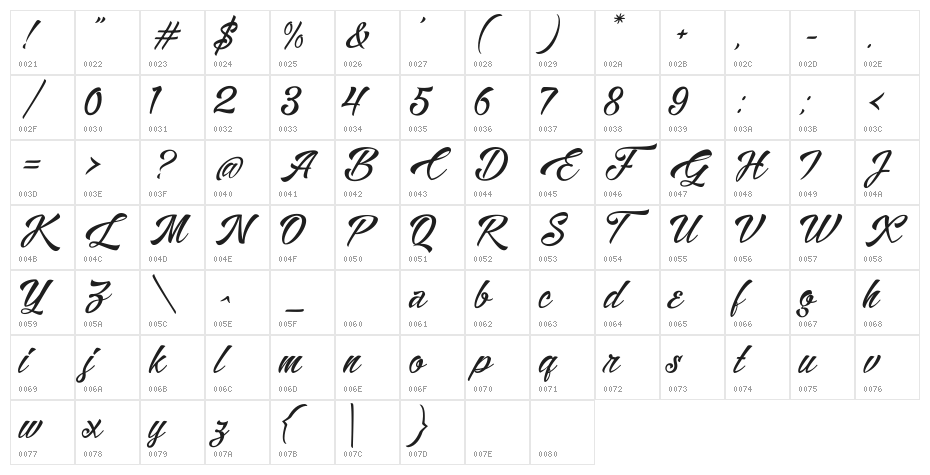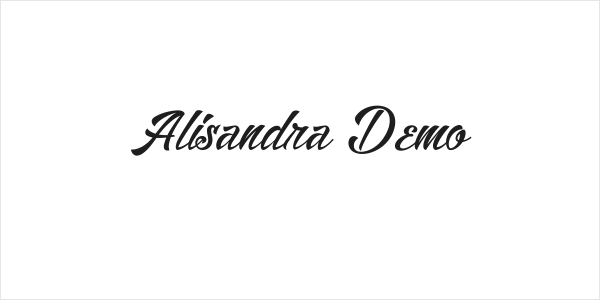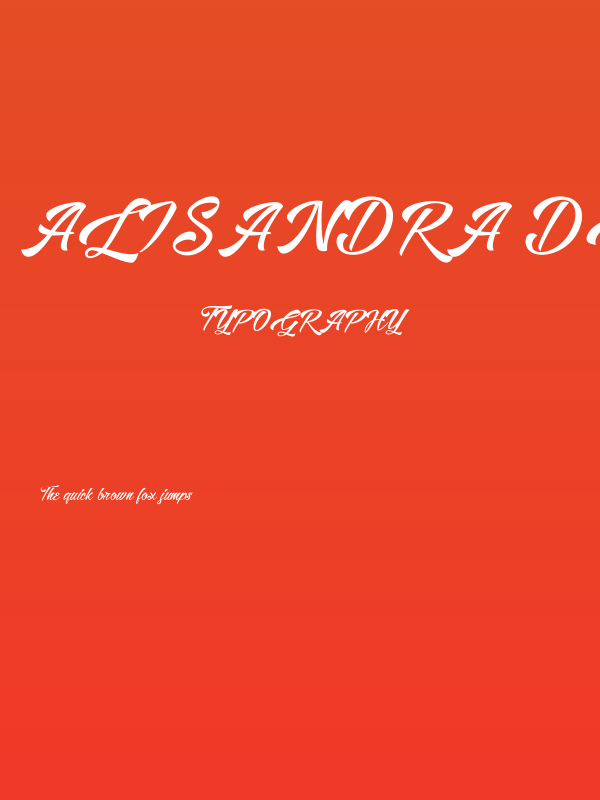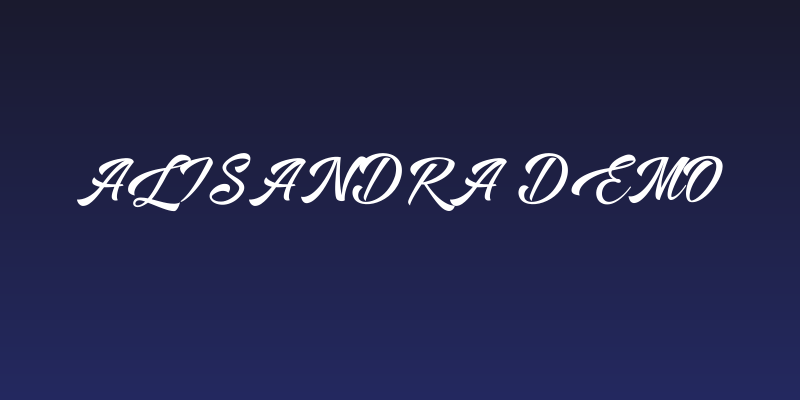
Alisandra Demo Font
Alisandra Demo Description
This elegant script font features flowing, interconnected letters with a calligraphic style. The uppercase letters are ornate and slightly slanted, while the lowercase letters maintain a consistent flow, enhancing readability. The numerals are bold and maintain the same stylistic curves, adding a touch of sophistication. Special characters are designed to match the overall aesthetic, ensuring a cohesive look across all text elements. This font's graceful appearance makes it ideal for projects that require a touch of elegance and formality.